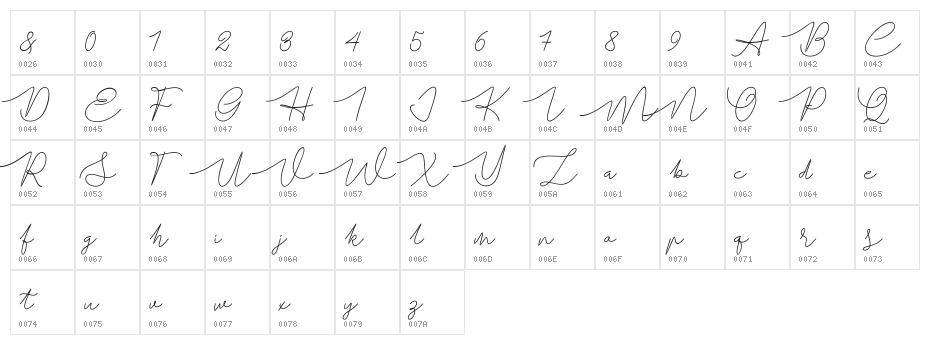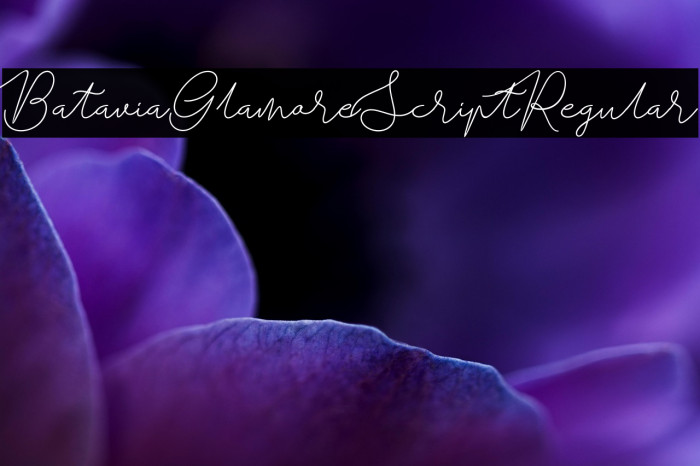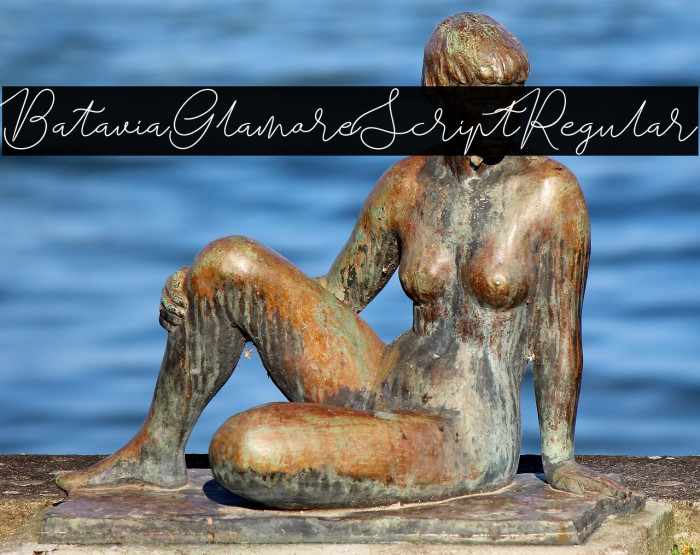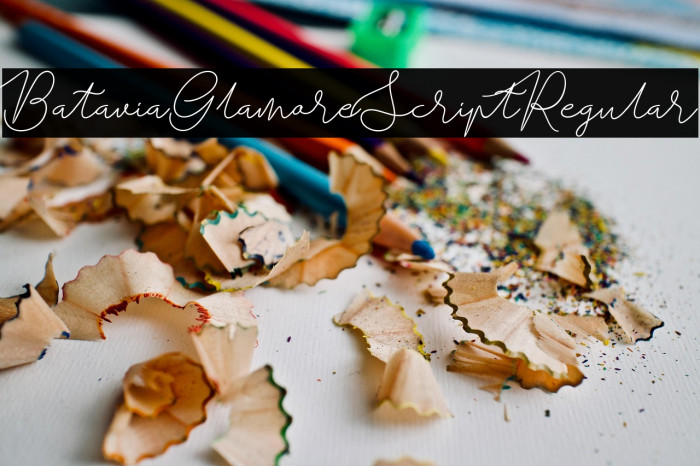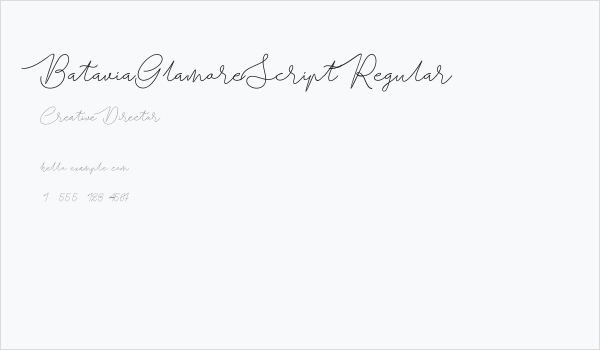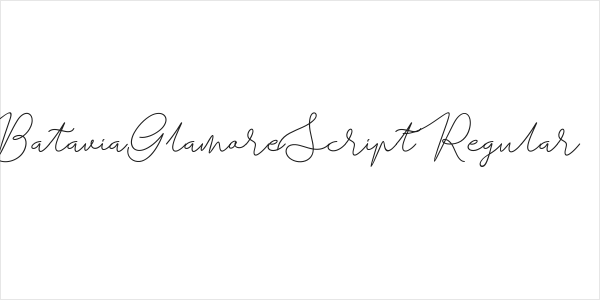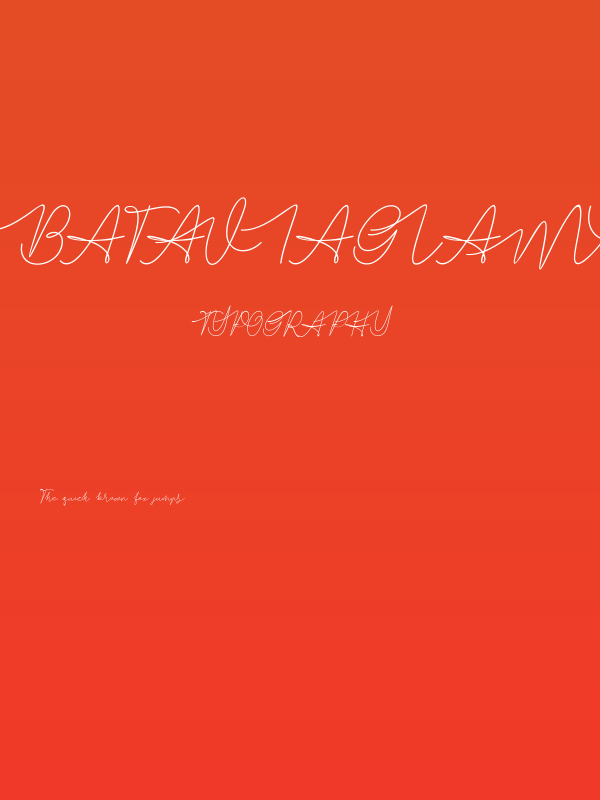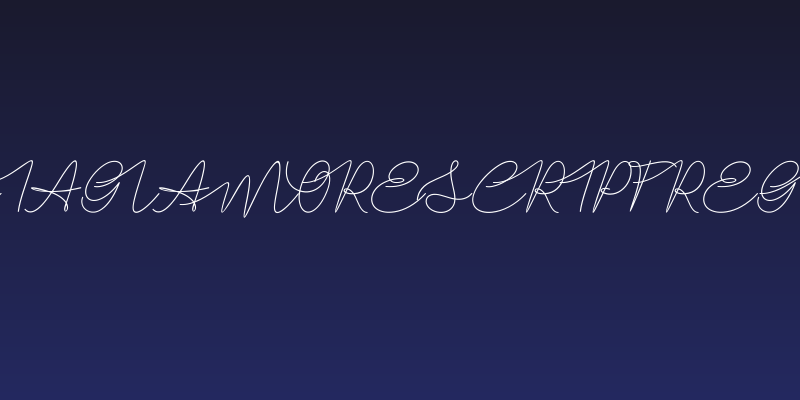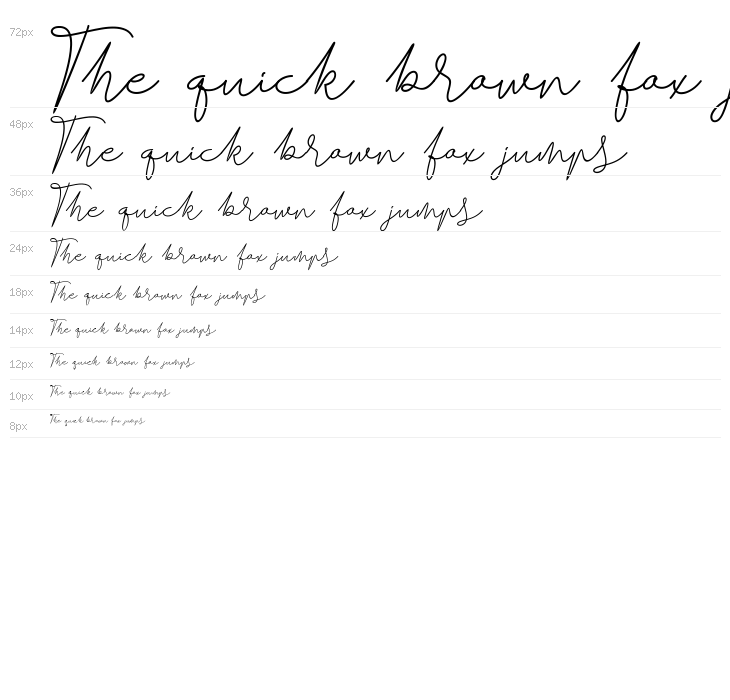
BataviaGlamoreScript-Regular Font
BataviaGlamoreScript-Regular Description
This elegant script font features fluid, interconnected strokes that create a sense of movement and grace. The uppercase letters are characterized by their looping ascenders and descenders, giving them a sophisticated and ornate appearance. The lowercase letters maintain a consistent flow, with gentle curves and a slight slant that enhances readability while retaining an artistic flair. The numerals are styled to match the overall aesthetic, with smooth, rounded forms. This font is ideal for projects that require a touch of elegance and sophistication, such as wedding invitations, branding, and high-end product packaging.
| Overall Style | Elegant, Decorative |
| Use Case | Headlines, Invitations, Branding |
| Proposed Projects | Ideal for wedding invitations, branding, high-end product packaging, and elegant stationery. |